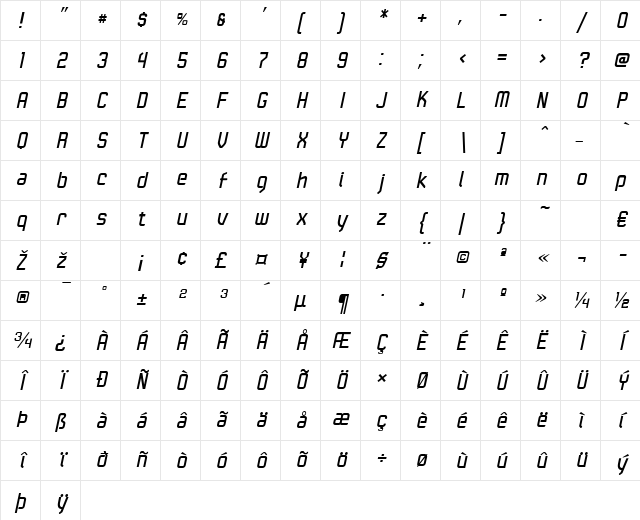
LTKaliber Italic Free Font
LTKaliber Italic
Designer: Lutz Baar
Design Context for LTKaliber
LTKaliber is a composed and adaptable typeface that performs quietly and consistently across a wide range of design contexts. The slanted form adds forward momentum and visual energy.